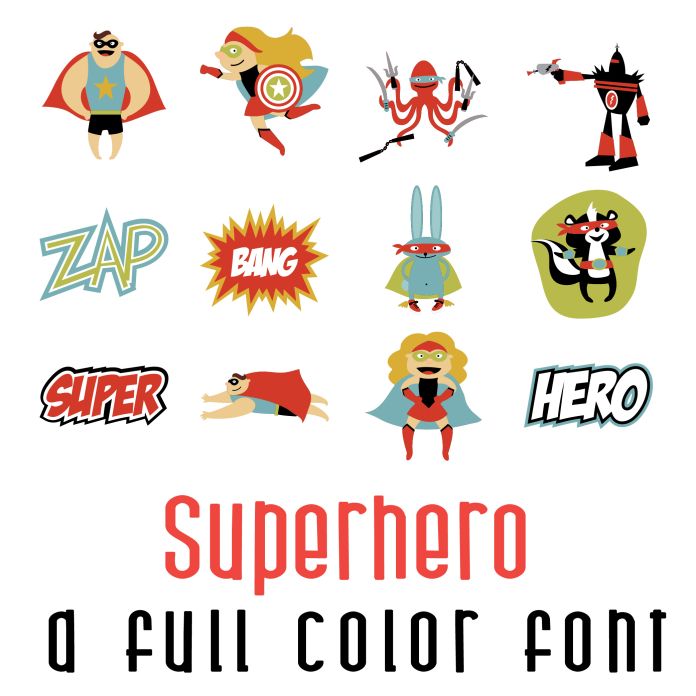
This fun full color font features 26 fun superheros and villains! Perfect for cards, crafts, gifts, planner stickers, scrap book pages, classrooms and more!